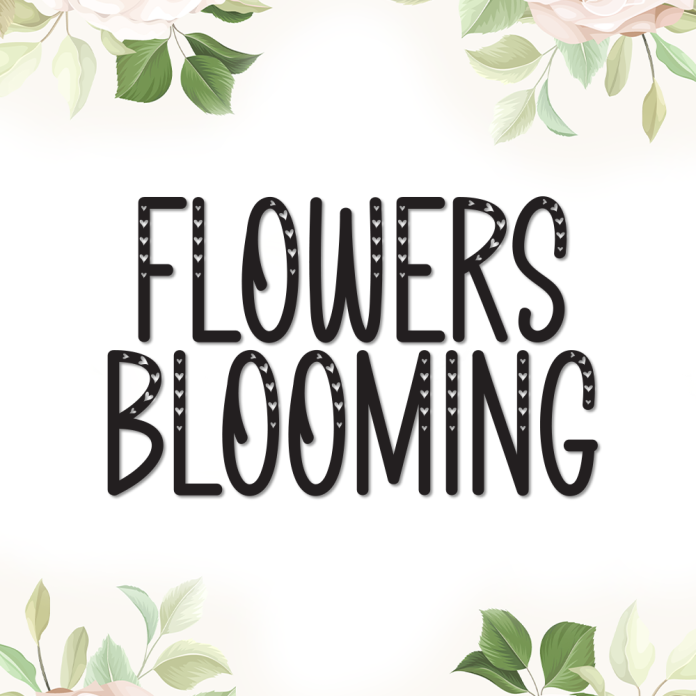
Flowers Blooming is a graceful and charming display font inspired by nature’s beauty in full bloom. With delicate curves and a touch of whimsy, this font is perfect for designs that celebrate growth, elegance, and the joyful spirit of springtime.
Perfect for floral-themed branding, invitations, packaging, wedding materials, and seasonal graphics, Flowers Blooming brings a soft and natural charm to every creation.
Elegant and nature-inspired display style
Beautiful curves and floral personality
Ideal for weddings, packaging, lifestyle branding, and spring themes
Let your creativity blossom with Flowers Blooming, the display font that captures the magic of nature in full bloom.